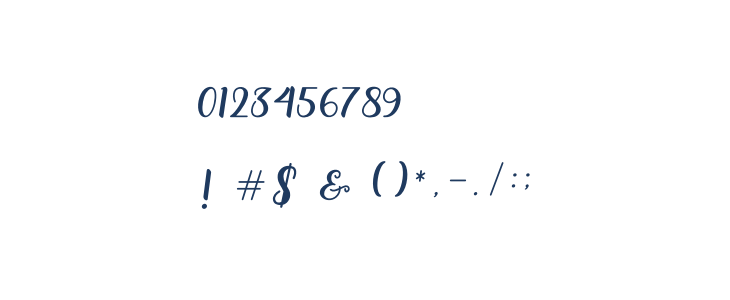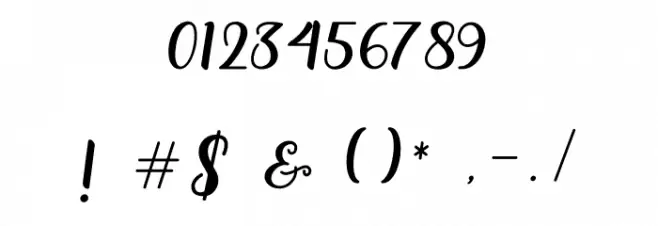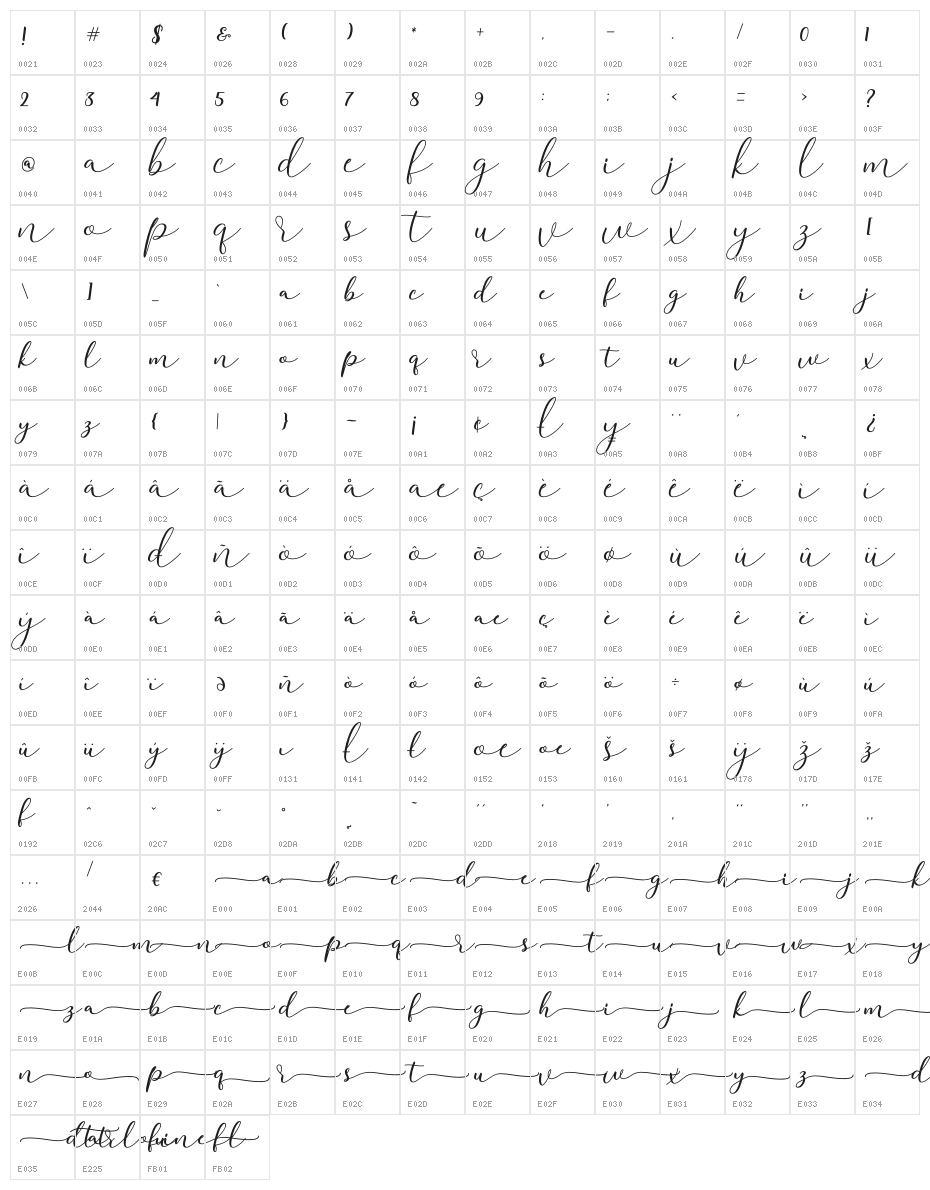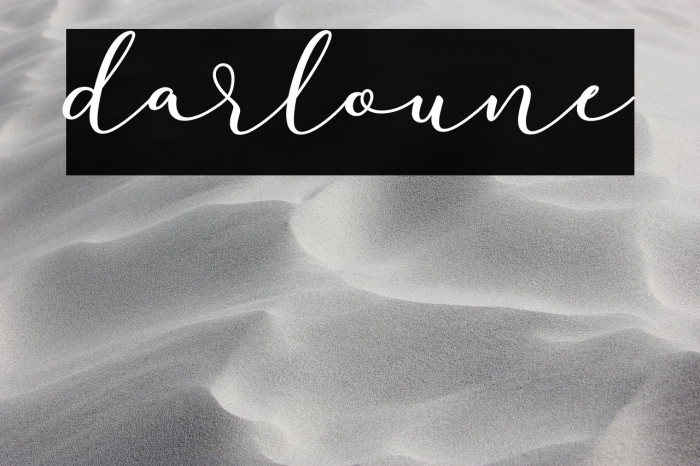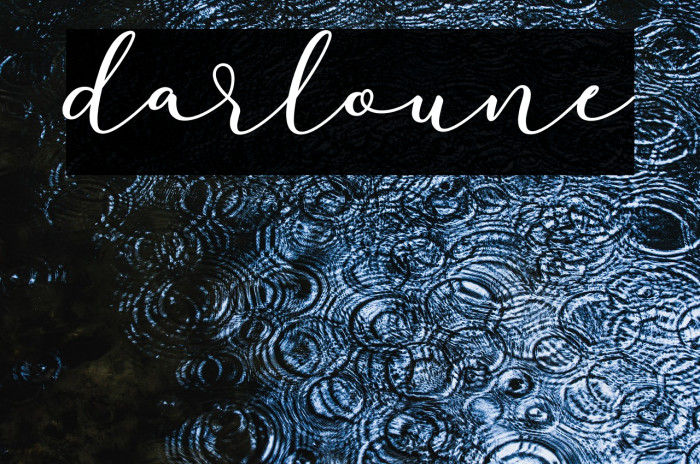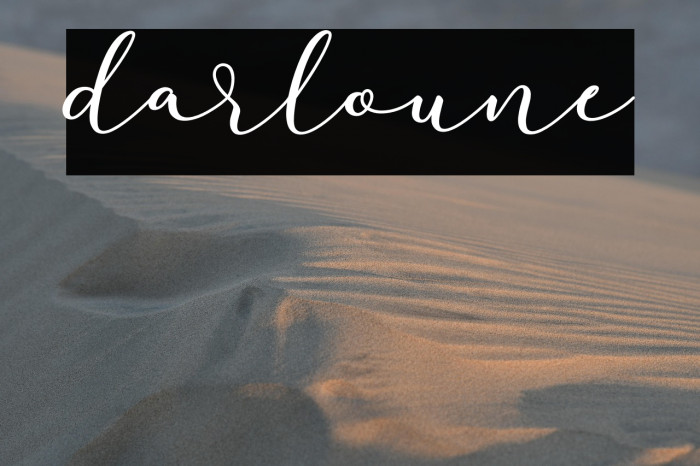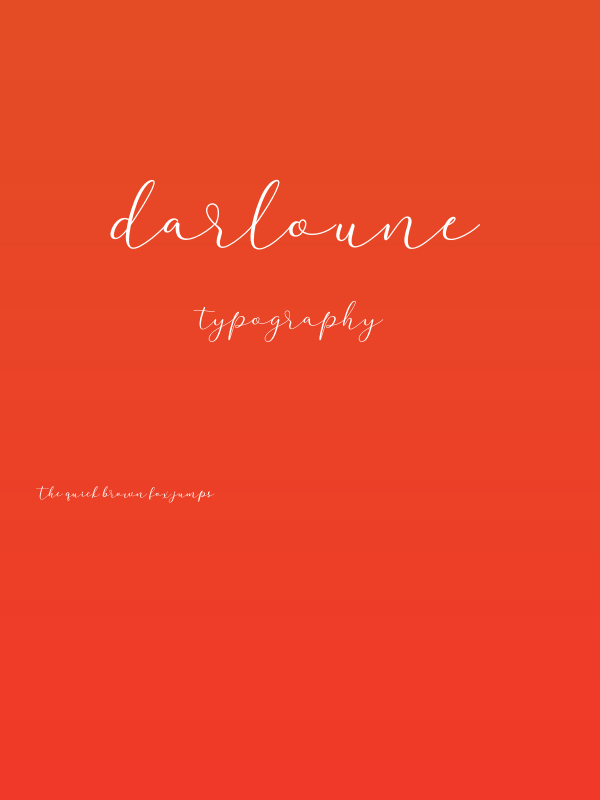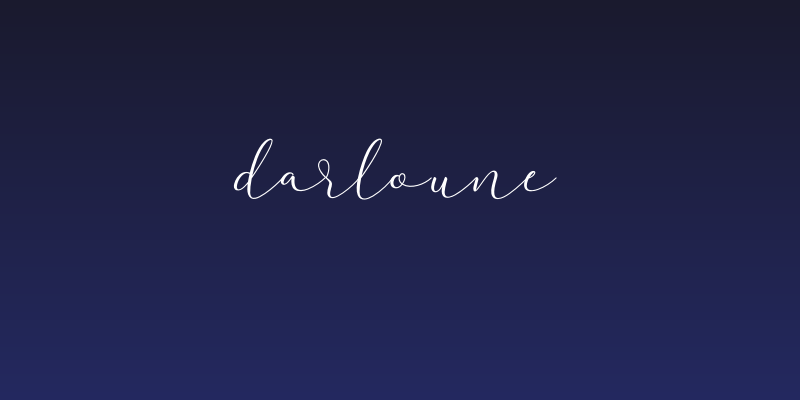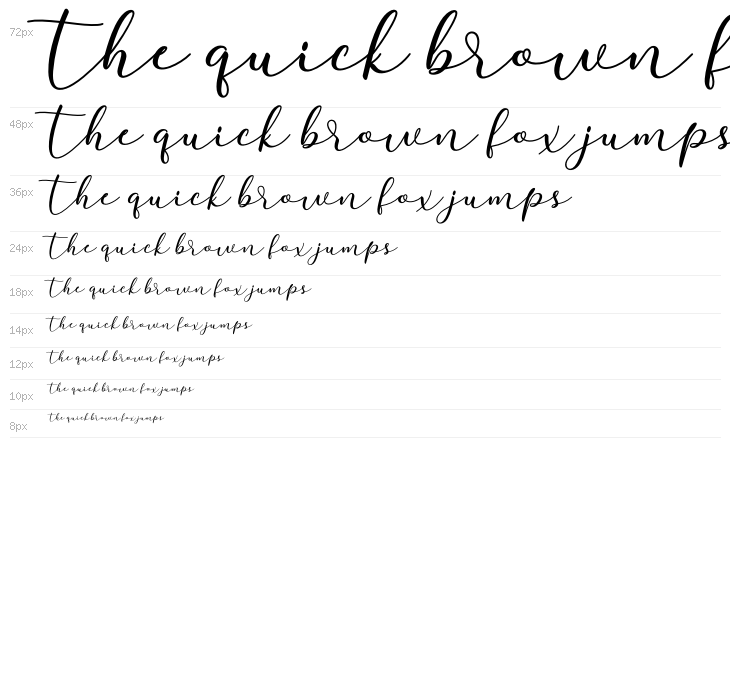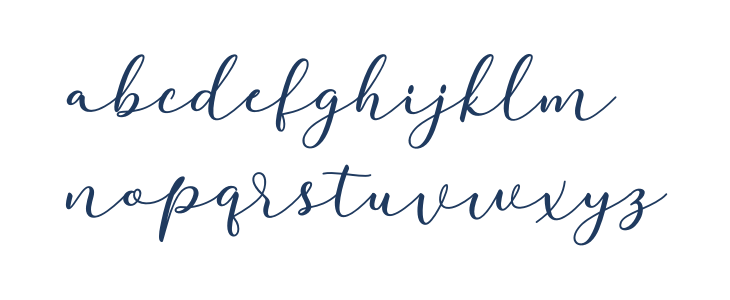
darloune Font
darloune Description
This font exudes elegance and fluidity, characterized by its cursive, handwritten style. The letters are connected in a smooth, flowing manner, giving it a graceful and sophisticated appearance. The strokes vary in thickness, adding a dynamic and lively feel to the text. The uppercase and lowercase letters maintain a consistent style, with gentle curves and loops that enhance its aesthetic appeal. The numerals and special characters are designed to complement the overall script style, ensuring a cohesive look across all elements. This font is perfect for projects that require a personal touch, such as invitations, greeting cards, and branding materials.
| Proposed Projects | Ideal for wedding invitations, greeting cards, personal branding, and elegant logos. |